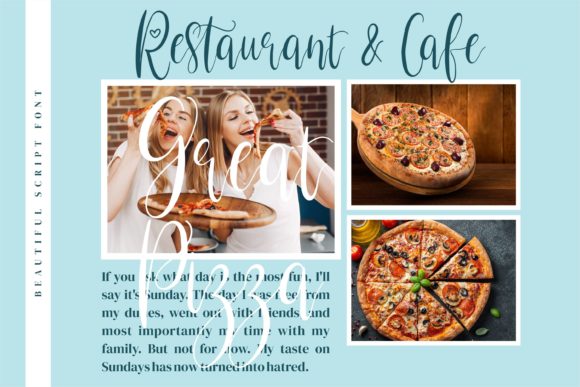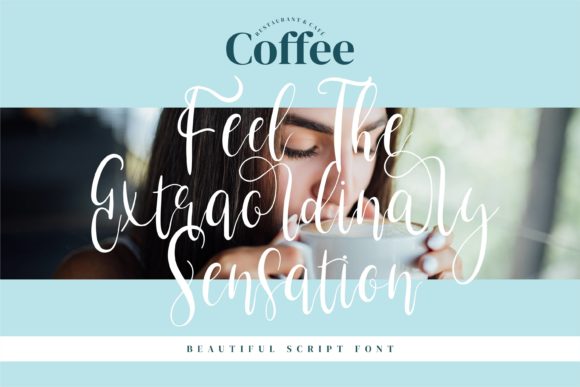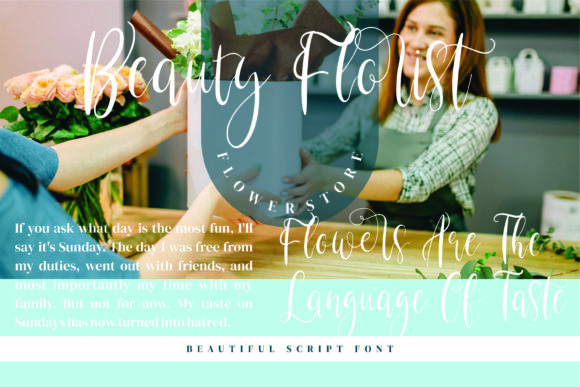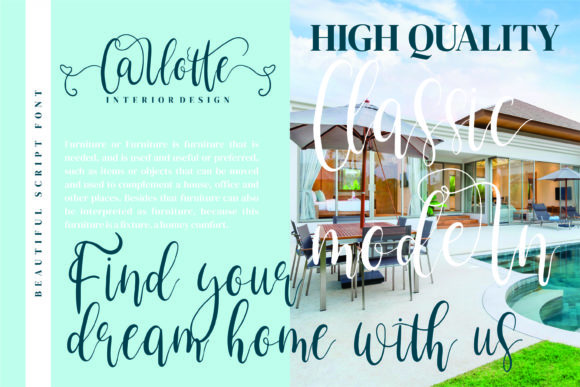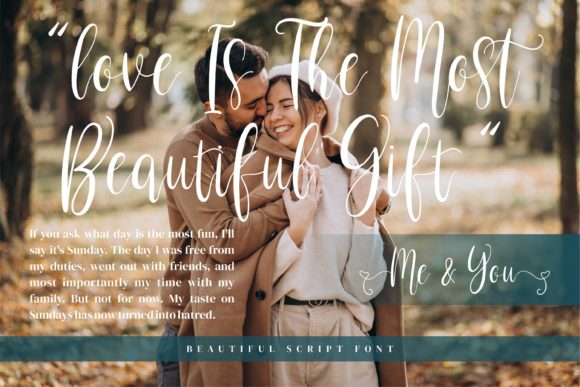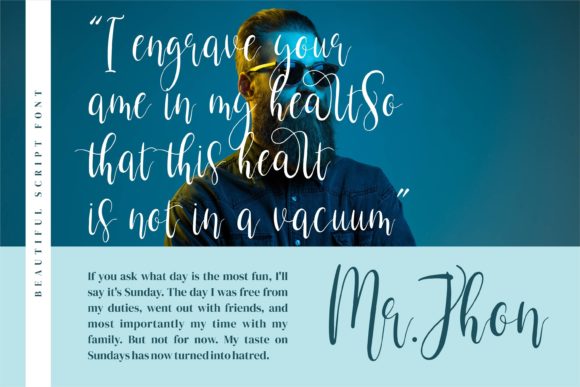
Introducing Charmelli Font: Elevate Your Designs with Sophistication and Elegance
In the world of typography, a font can make or break a design. For designers and crafters seeking to infuse their projects with a touch of sophistication and elegance, Charmelli Font is an exceptional choice. This chic, refined script font is designed to emanate luxury and poise, making it the perfect match for a wide range of creative endeavors.
What Makes Charmelli Font Stand Out?
Charmelli Font boasts a range of features that set it apart from other script fonts. Its stylish alternates and ligatures are meticulously crafted to add a layer of refinement to any project. Whether you’re working on a branding campaign, a wedding invitation, or a packaging design, Charmelli Font is sure to make a lasting impression.
One of the key benefits of Charmelli Font is its PUA (Private Use Area) encoding. This means that accessing all of the glyphs and swashes is incredibly easy, allowing designers to focus on the creative process rather than getting bogged down in technical complexities. With Charmelli Font, you can effortlessly incorporate beautiful, intricate details into your designs.
The Versatility of Charmelli Font
Charmelli Font’s versatility is one of its most compelling attributes. Its elegant, cursive script is suitable for a diverse array of projects, including:
- Branding and Logos: Create a lasting impression with a sophisticated logo that exudes refinement and poise.
- Wedding Invitations: Add a touch of luxury to your wedding stationery with Charmelli Font’s beautiful script.
- Packaging Design: Elevate your product packaging with a font that conveys elegance and sophistication.
- Advertising and Marketing: Use Charmelli Font to create eye-catching advertisements and marketing materials that stand out from the crowd.
Key Features of Charmelli Font
To give you a better understanding of what Charmelli Font has to offer, here are some of its key features:
- PUA Encoded: Easy access to all glyphs and swashes.
- Stylish Alternates and Ligatures: Add a touch of sophistication to your designs with beautiful alternates and ligatures.
- Refined Script: Elegant, cursive script perfect for a range of creative projects.
- High-Quality Design: Meticulously crafted to ensure a high level of detail and precision.
Tips for Using Charmelli Font
To get the most out of Charmelli Font, here are a few tips to keep in mind:
- Experiment with Alternates and Ligatures: Don’t be afraid to try out different alternates and ligatures to find the perfect combination for your design.
- Pair with Complementary Fonts: Combine Charmelli Font with complementary fonts to create a visually appealing contrast.
- Adjust Font Sizes: Play around with different font sizes to create a hierarchy of information and add depth to your design.
Charmelli Font is a sophisticated and elegant script font that is sure to elevate your designs to new heights. With its stylish alternates and ligatures, PUA encoding, and refined script, this font is perfect for designers and crafters seeking to add a touch of luxury to their projects. Whether you’re working on a branding campaign, a wedding invitation, or a packaging design, Charmelli Font is an exceptional choice.